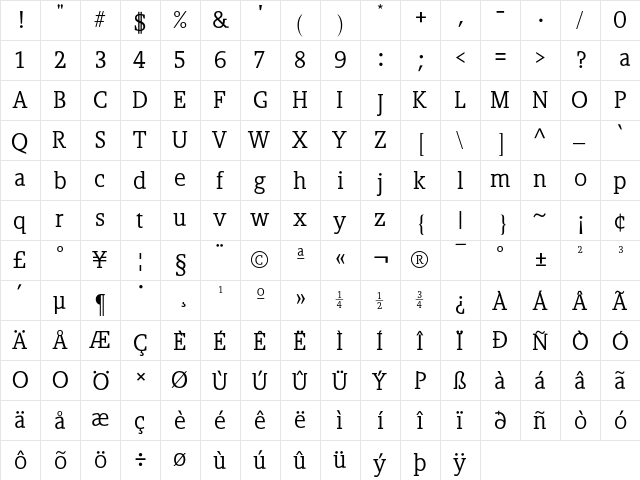
HoTomLL Regular
Design Context for HoTomLL Typeface
HoTomLL offers clean, dependable letterforms without strong stylistic allegiance, making it a practical choice for designers who need flexibility.